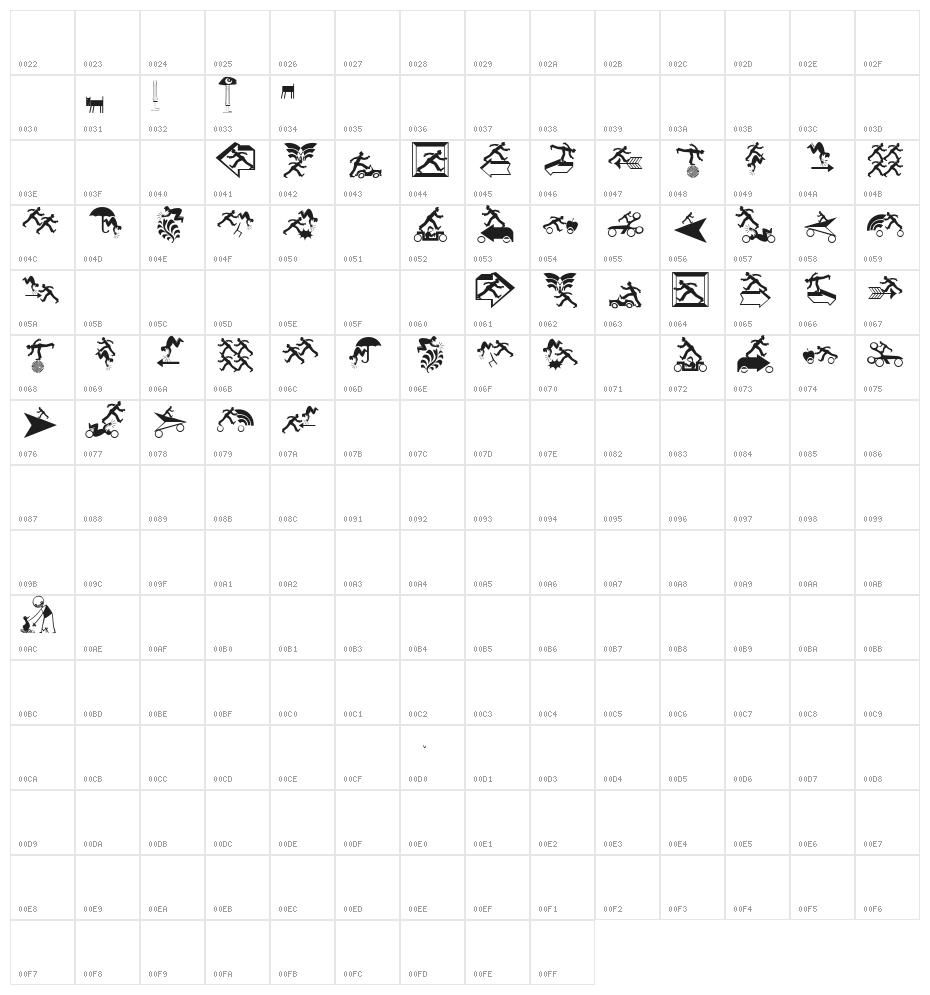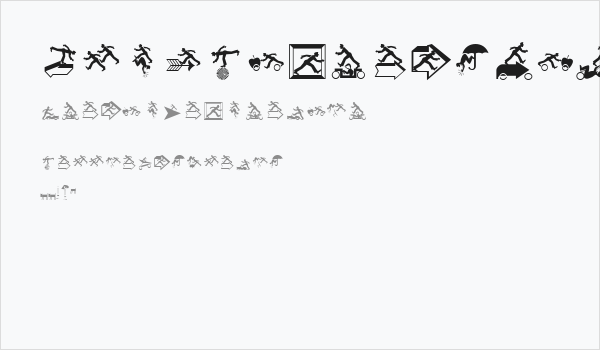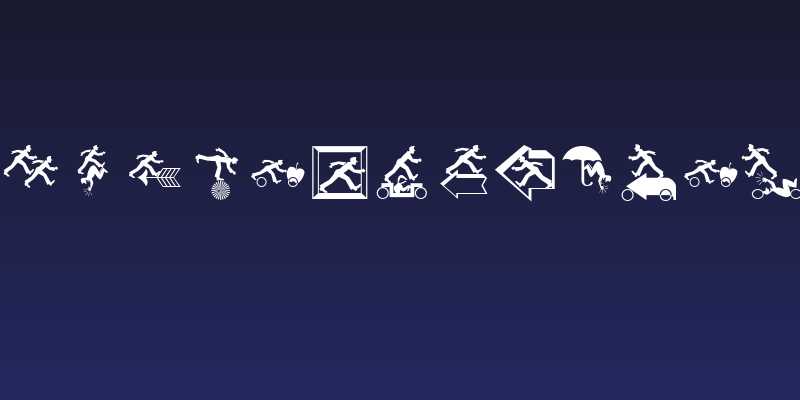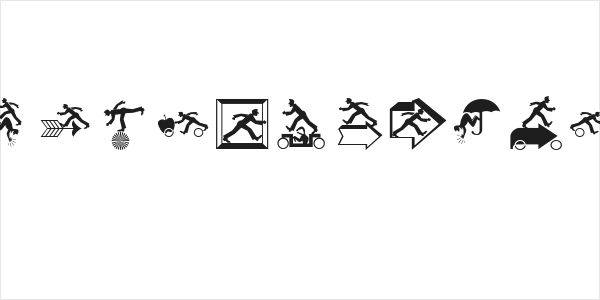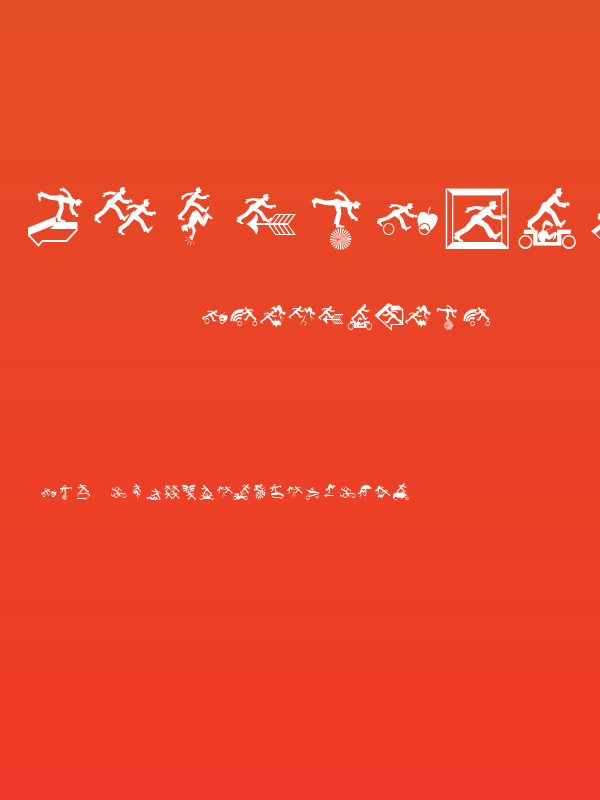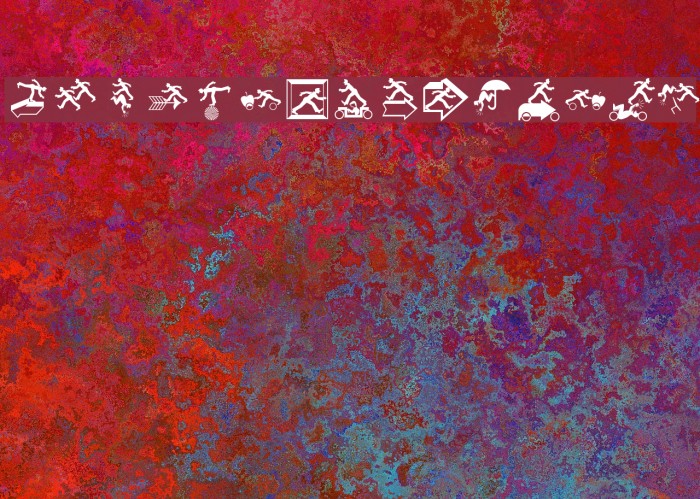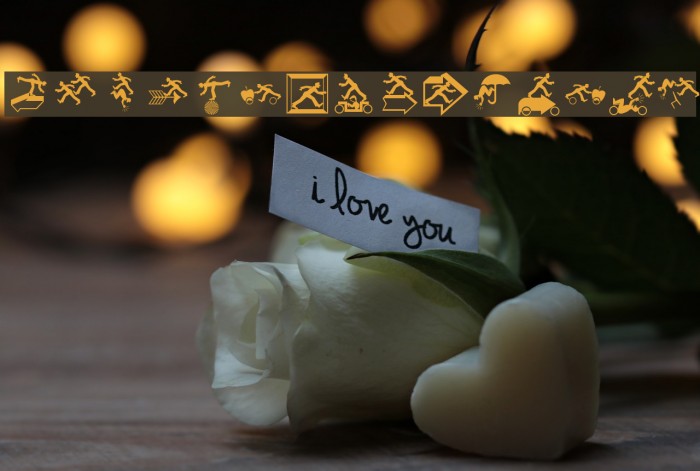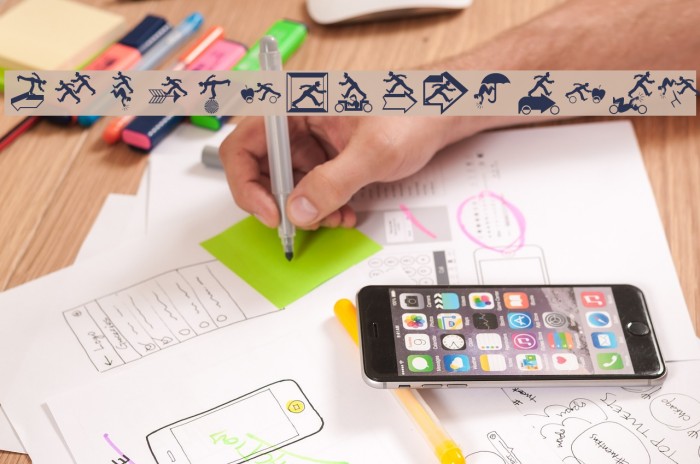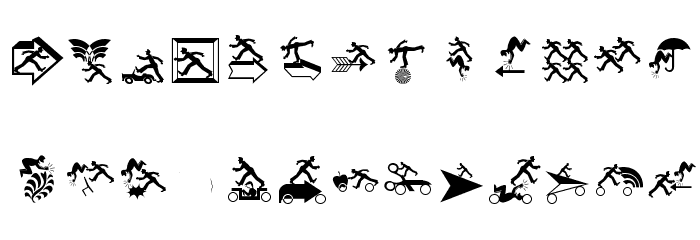
FlightDreamsTwo Font
FlightDreamsTwo Description
This set of symbols is a creative and whimsical collection of pictograms featuring dynamic figures in motion, often depicted in various athletic poses or engaging in activities like running, cycling, and jumping. The characters are stylized with bold outlines and a playful aesthetic, incorporating elements such as arrows and abstract shapes to convey movement and direction. The design is highly illustrative, with each symbol telling a small story or capturing a moment of action. The inclusion of unique elements like wings, umbrellas, and abstract forms adds a layer of fantasy and imagination, making it suitable for projects that require a touch of creativity and fun.
| Overall Style | Playful and Illustrative |
| Use Case | Logos, Illustrations, Creative Projects |
| Proposed Projects | Ideal for use in children's books, playful branding, sports event materials, or creative infographics. |